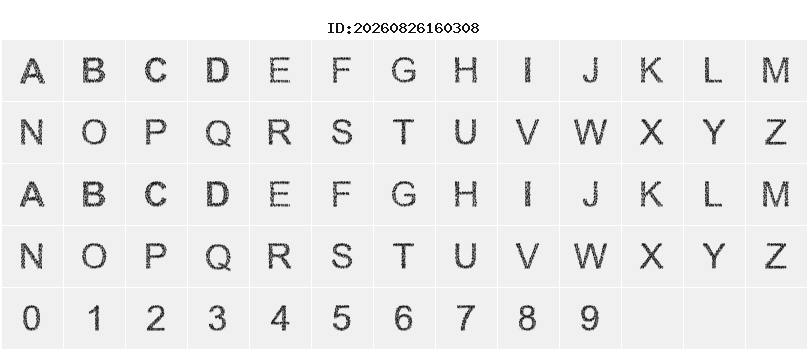
• Font Name: WalkingCrowd
• Designer: veronique callait
About WalkingCrowd.ttf
WalkingCrowd.ttf is a modern, elegant sans-serif font designed for ultimate readability and visual harmony. Perfect for branding, headlines, web design, and print materials.